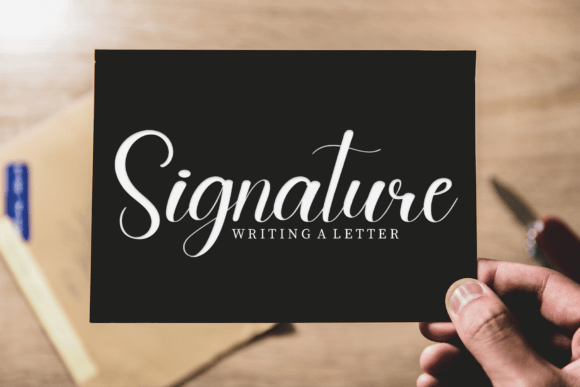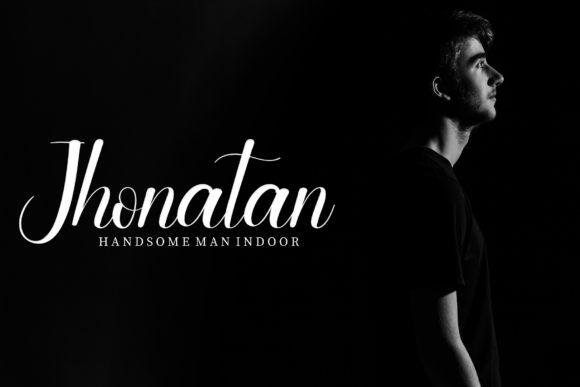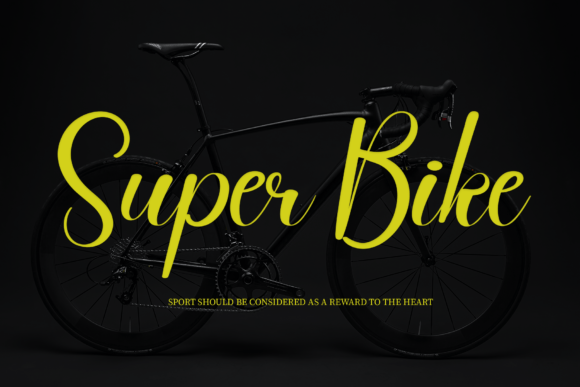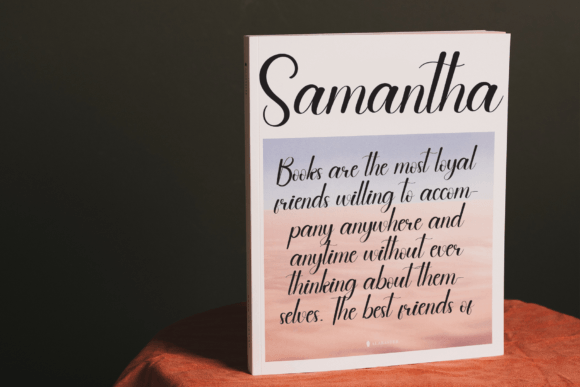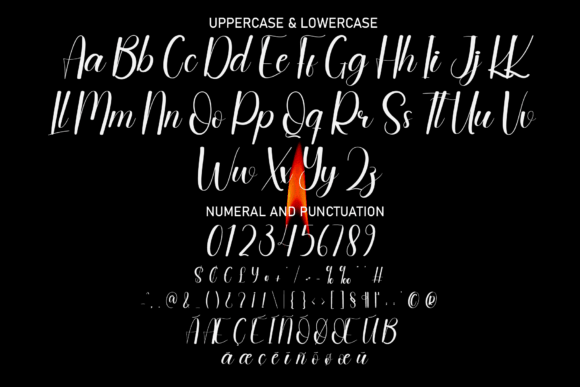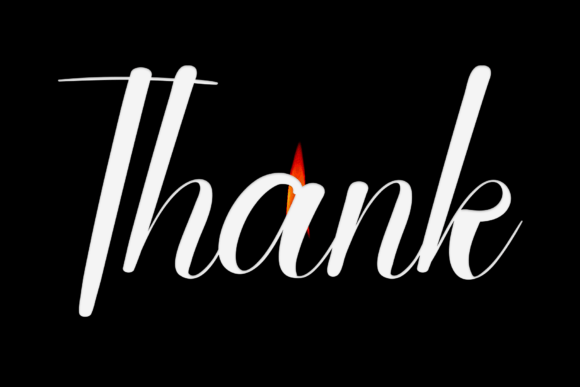
Candle Font: Adding a Sweet and Friendly Touch to Your Designs
Are you looking for a font that can add a touch of warmth and friendliness to your designs? Look no further than the Candle font! This beautiful handwritten font is perfect for creating wedding invitations, cards, and other designs that require a personal and playful touch.
What is Candle Font?
Candle is a sweet and friendly handwritten font that is fresh and neat. Its unique and elegant style makes it ideal for a variety of design projects, from wedding invitations and cards to posters and social media graphics. The font is designed to be easy to read and understand, making it perfect for both personal and professional use.
Key Features of Candle Font
- Sweet and Friendly Style: The Candle font has a sweet and friendly style that is perfect for creating designs that require a personal touch.
- Handwritten Look: The font has a beautiful handwritten look that is fresh and neat, making it perfect for a variety of design projects.
- Elegant and Playful: The Candle font is both elegant and playful, making it perfect for designs that require a touch of sophistication and whimsy.
- Easily Readable: The font is designed to be easy to read and understand, making it perfect for both personal and professional use.
Uses of Candle Font
The Candle font is versatile and can be used for a variety of design projects, including:
- Wedding Invitations: The font is perfect for creating beautiful and elegant wedding invitations that will make your guests feel special.
- Cards: The Candle font is ideal for creating cards for special occasions such as birthdays, anniversaries, and holidays.
- Posters: The font can be used to create eye-catching posters for events, promotions, and other marketing campaigns.
- Social Media Graphics: The Candle font is perfect for creating social media graphics that require a personal and playful touch.
Why Choose Candle Font?
There are many reasons why you should choose the Candle font for your design projects. Here are a few:
- Unique Style: The Candle font has a unique and elegant style that will make your designs stand out.
- High-Quality: The Candle font is a high-quality font that is designed to produce crisp and clear text.
Tips for Using Candle Font
Here are a few tips for using the Candle font in your design projects:
- Use it for Headings: The Candle font is perfect for use in headings and titles, where its elegant and playful style can really shine.
- Pair it with Other Fonts: The font can be paired with other fonts to create a unique and interesting look.
- Experiment with Colors: The Candle font looks great in a variety of colors, so don’t be afraid to experiment and find the perfect color for your design.
The Candle font is a beautiful and versatile font that is perfect for adding a sweet and friendly touch to your designs. Its unique and elegant style makes it ideal for a variety of design projects, from wedding invitations and cards to posters and social media graphics. With its ease of use, high-quality design, and affordability, the Candle font is a great choice for designers and crafters looking to add a personal and playful touch to their work.